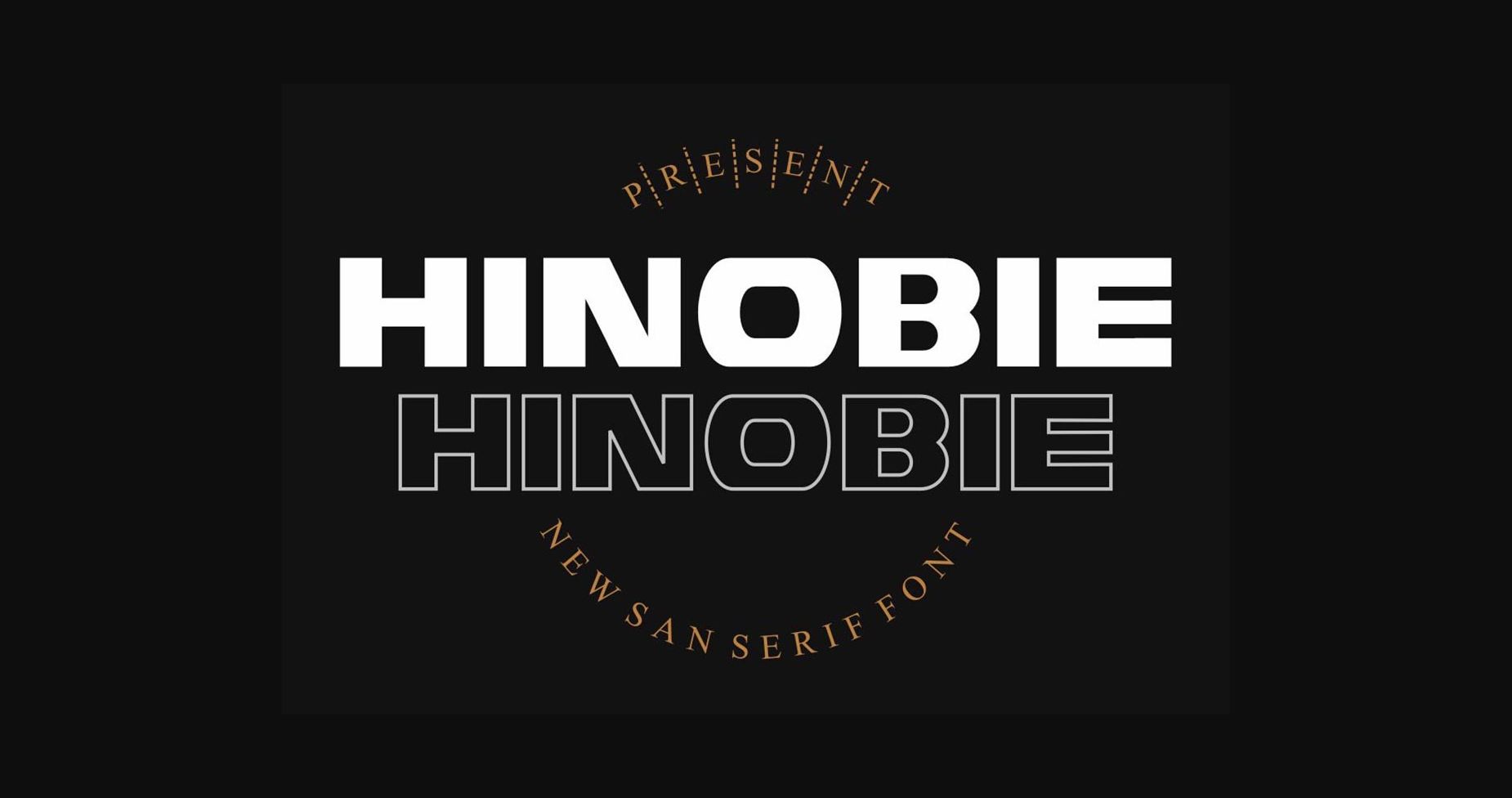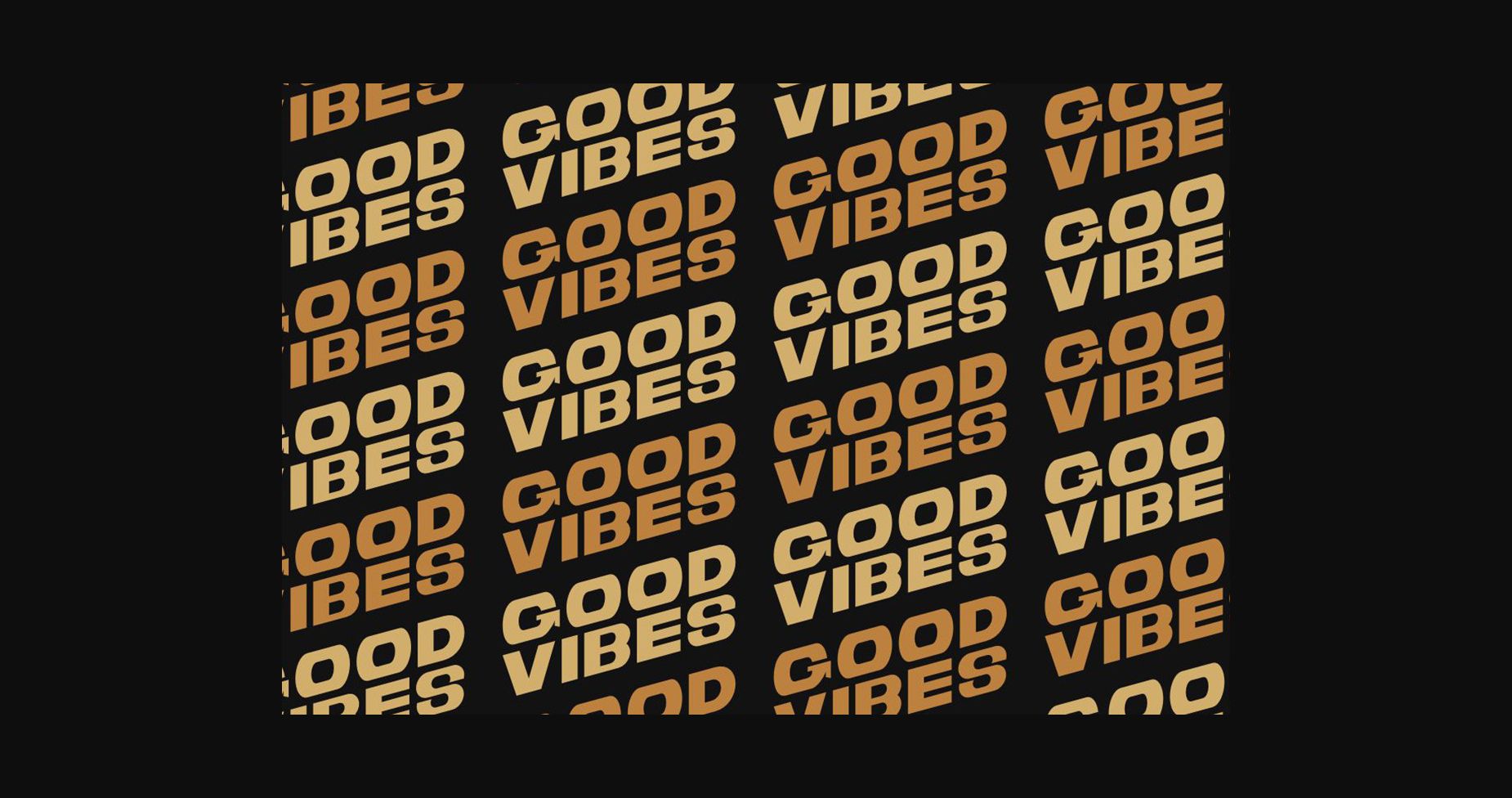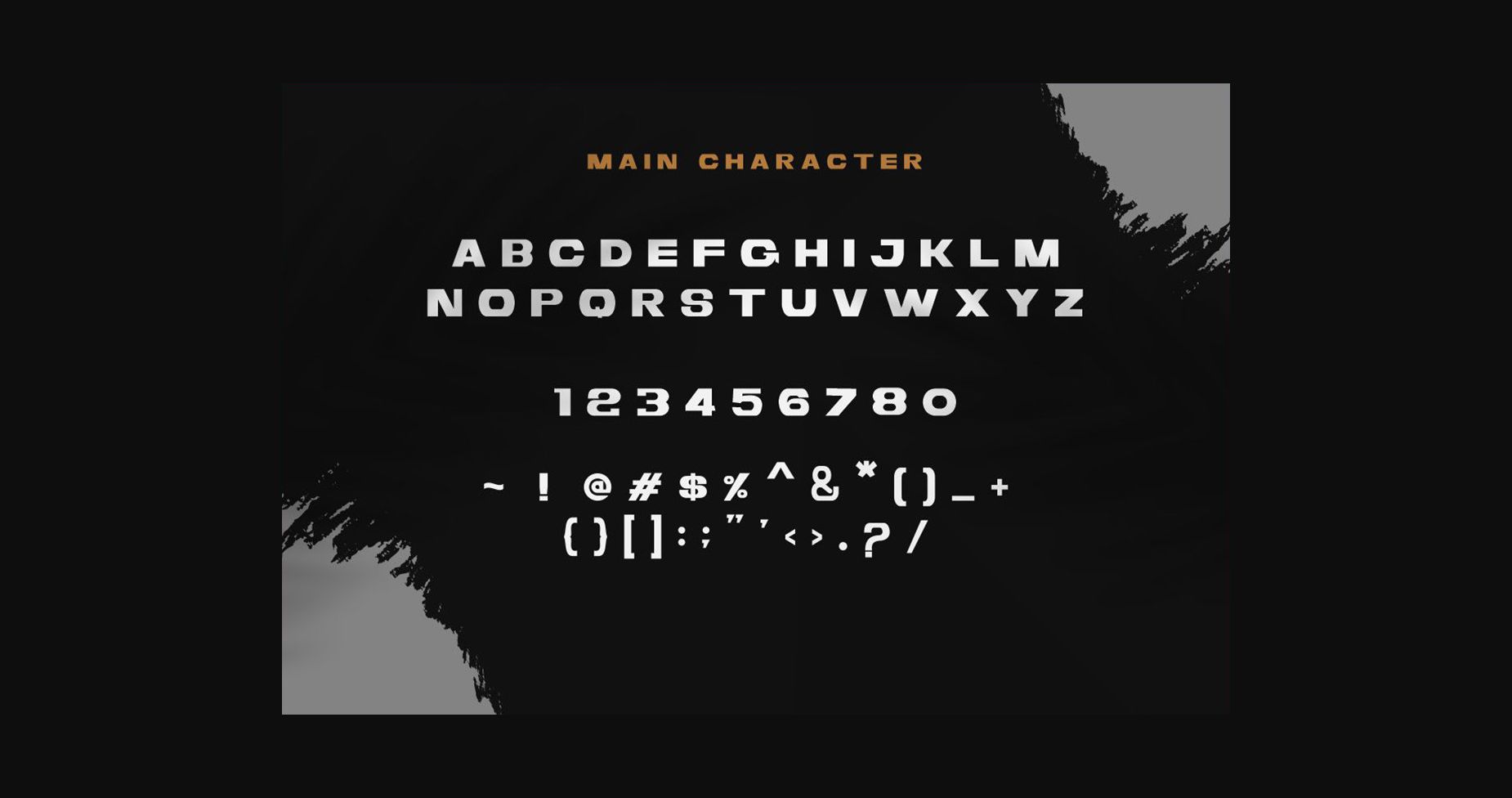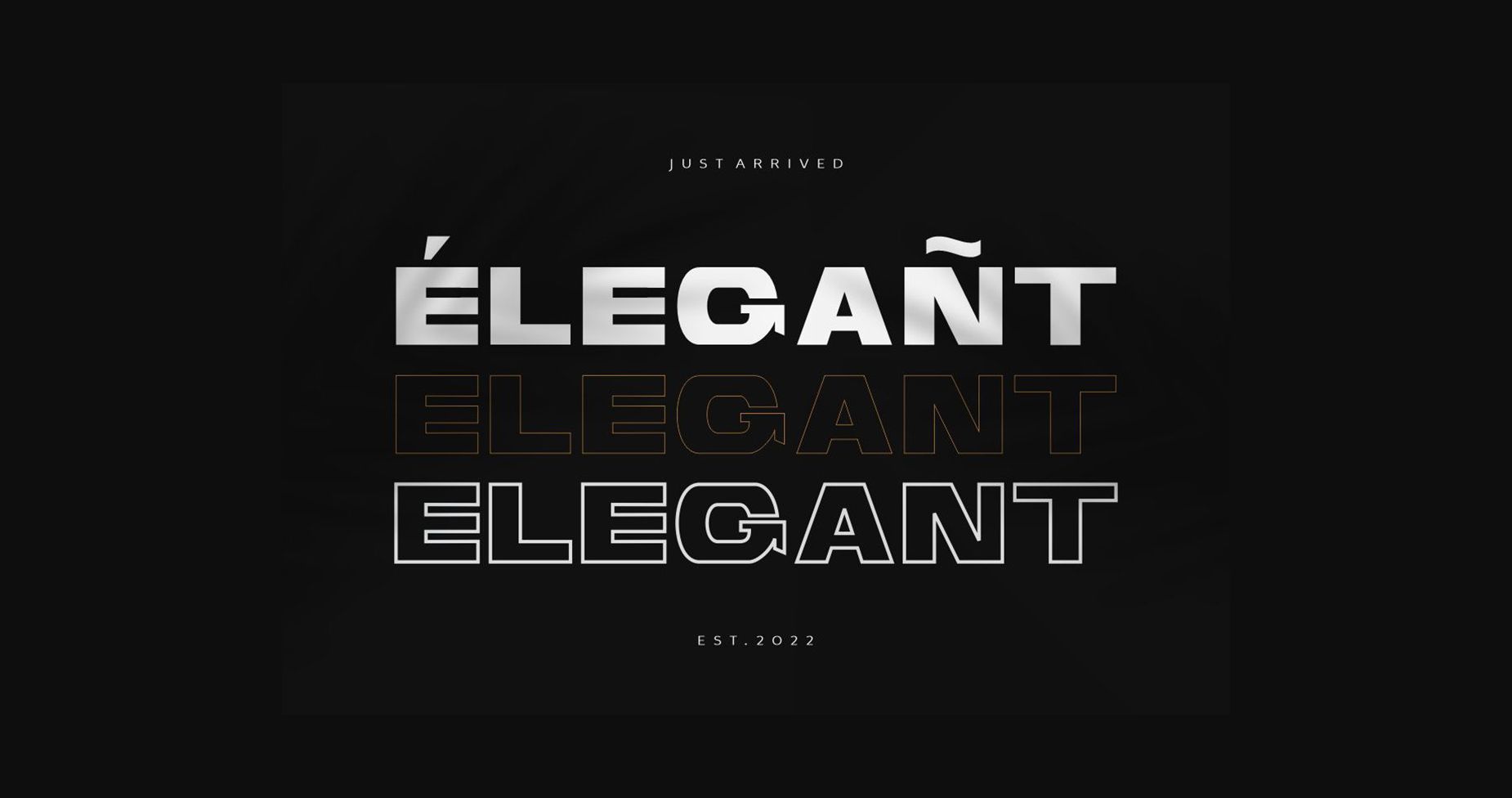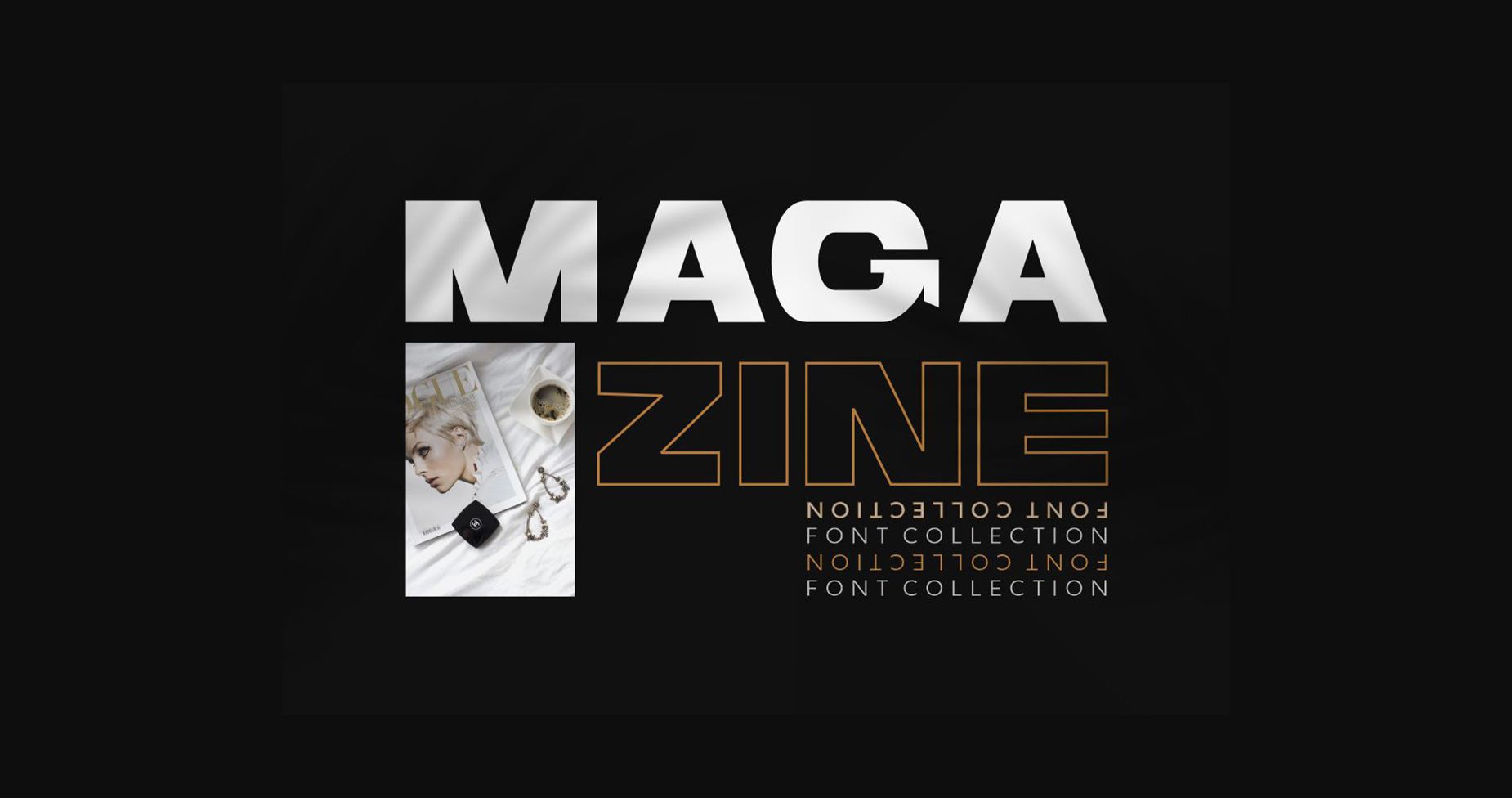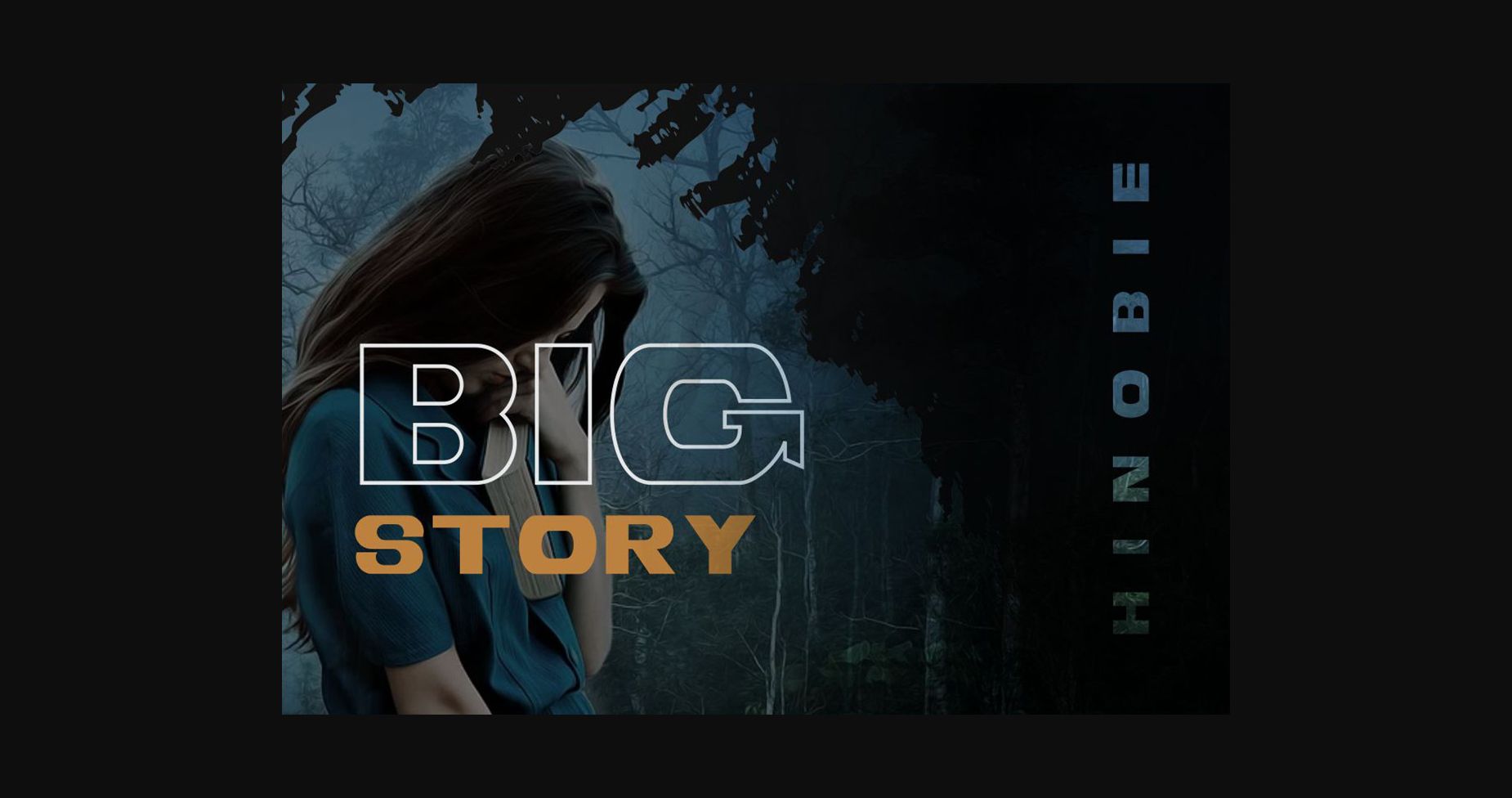
About Hinobie Font
Hinobie is a sleek and contemporary sans-serif font designed for the modern age. With its clean lines and balanced proportions, this font is perfect for creating a professional and fashionable look. Its versatility makes it ideal for both print and digital designs.